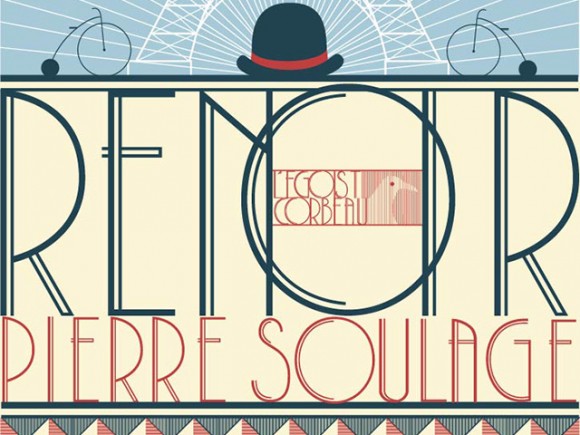
Download and enjoy this free l’egoist corbeau font. Cool typeface to showcase your designs in a modern way. This free typeface file was found from the amazing source called The Hungry JPEG. This is absolutely cool font so you can easily make world-class designs.